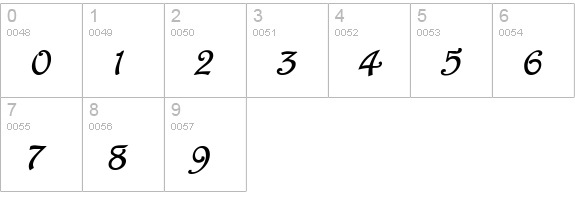
Parisian Bold Italic is a strong, high-contrast, italic variant in the Parisian typeface family \xE2\x80\x94 well suited to headlines, attention-grabbing titles, and strong calls-to-action.
Parisian Bold Italic is a captivating and elegant font that effortlessly combines the charm of Parisian sophistication with the boldness of modern design. This font exudes a sense of confidence and flair, making it the perfect choice for those seeking to make a statement with their typography. With its sleek and slanted letterforms, Parisian Bold Italic commands attention and adds a touch of drama to any design project. Whether used for headlines, logos, or branding materials, this font will captivate and engage viewers, leaving a lasting impression. What sets Parisian Bold Italic apart is not just its striking aesthetics, but also its versatility. It seamlessly transitions from elegant and refined to bold and daring, allowing designers to express a wide range of emotions and styles. It is the ideal choice for fashion magazines, luxury brands, and any project that requires a touch of sophistication. One of the most appealing aspects of Parisian Bold Italic is that it is freely available to download at FontsMarket.com. This means that designers and creatives can easily access this stunning font without any cost, making it a valuable addition to their toolkit. Parisian Bold Italic is meticulously designed with attention to detail, ensuring that every curve and stroke is perfectly balanced. Its high-quality design ensures that it looks stunning at any size, whether on a small scale for business cards or on a larger scale for billboards. In conclusion, Parisian Bold Italic is a font that effortlessly combines elegance and boldness, making it a must-have for any designer or creative professional. Its striking aesthetics, versatility, and the fact that it is freely available to download at FontsMarket.com make it an invaluable asset for creating captivating and memorable designs.